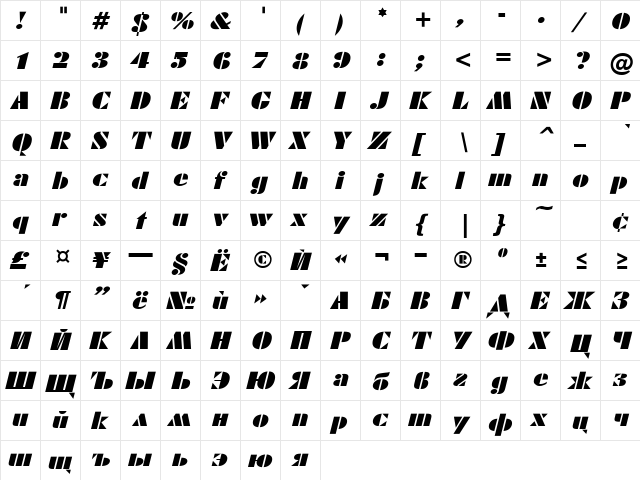
ShablonExt Oblique
Design Context for ShablonExt Typeface
ShablonExt is a composed and adaptable typeface that performs quietly and consistently across a wide range of design contexts. The dynamic lean of this cut emphasises speed and emphasis in any layout.
Pro Tip: Try ShablonExt for annotation and caption copy alongside an upright companion — the contrast in angle creates a dynamic but ordered typographic system.